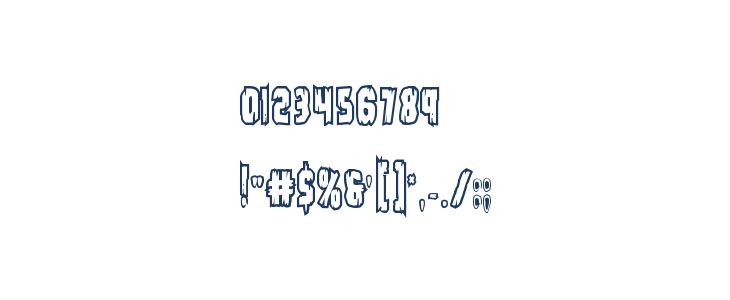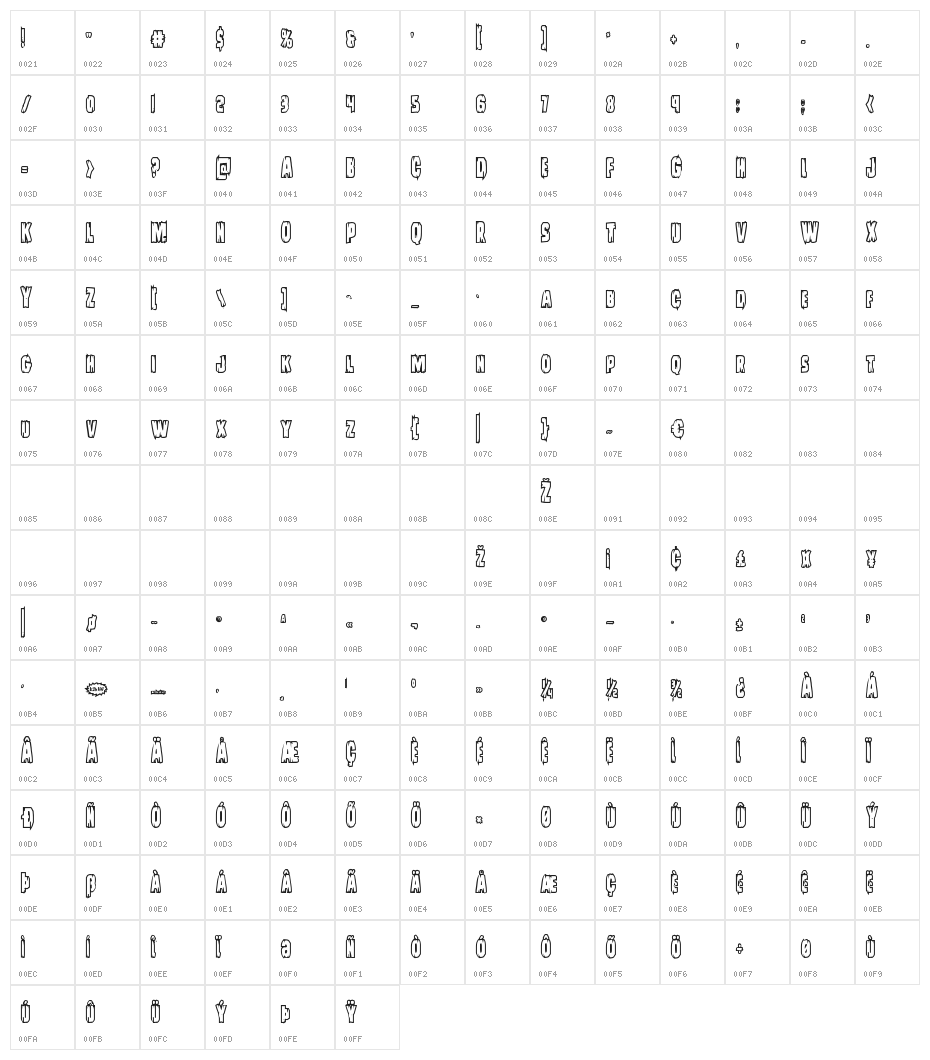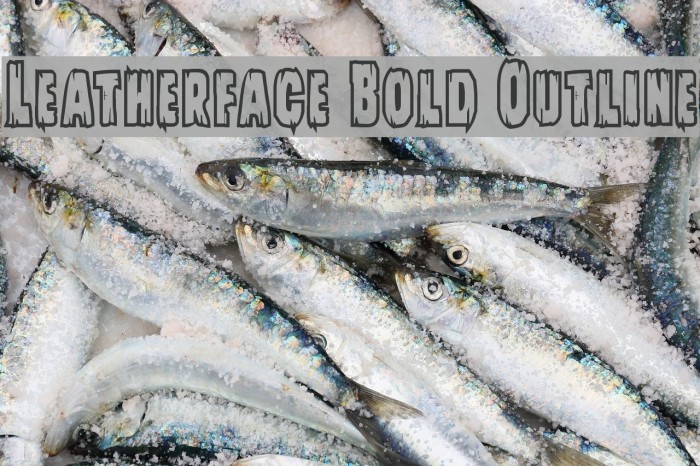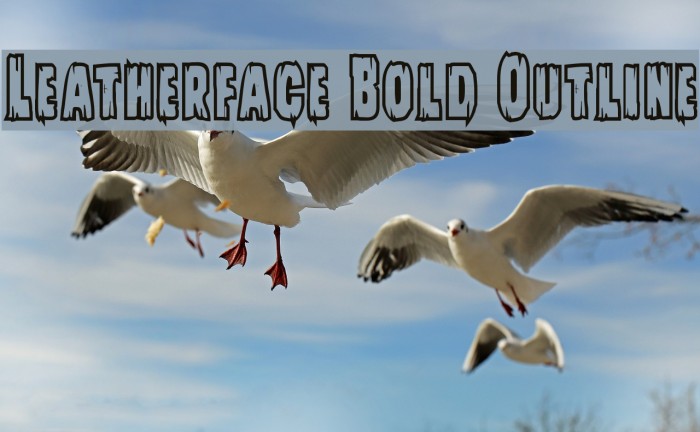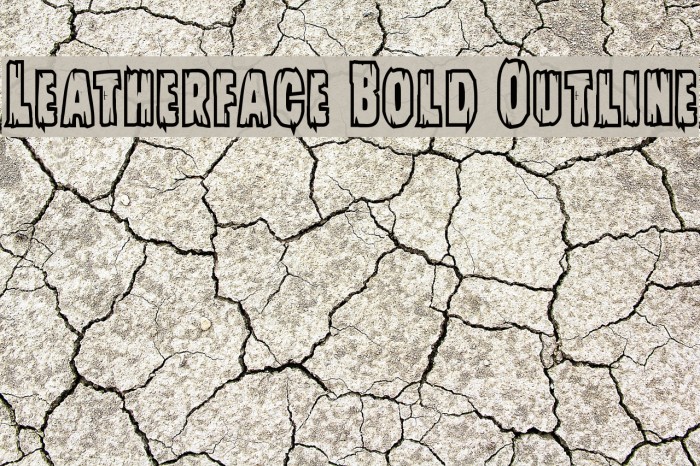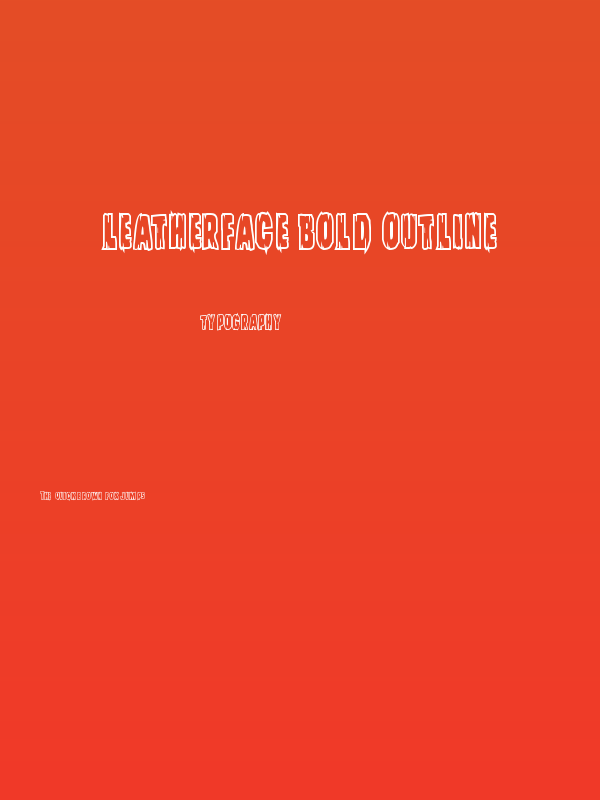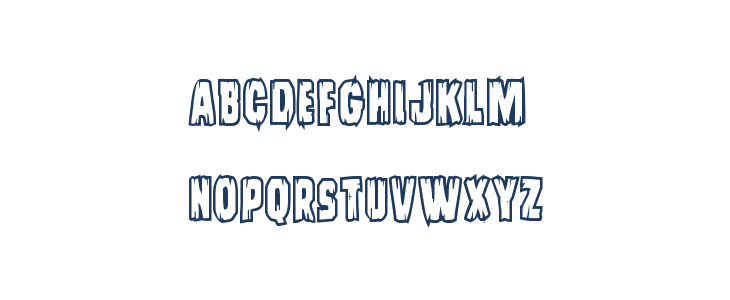
Leatherface Bold Outline Font
Leatherface Bold Outline Description
This font features a bold, rugged outline style that gives it a distinctive, edgy appearance. The characters are designed with sharp, irregular edges, creating a sense of movement and intensity. The uppercase and lowercase letters maintain a consistent boldness, while the numbers and special characters follow the same design ethos, ensuring uniformity across all elements. The font's unique style makes it stand out, with a strong visual impact that is both eye-catching and memorable.
| Proposed Projects | Ideal for horror-themed designs, Halloween posters, edgy branding, and video game titles. |